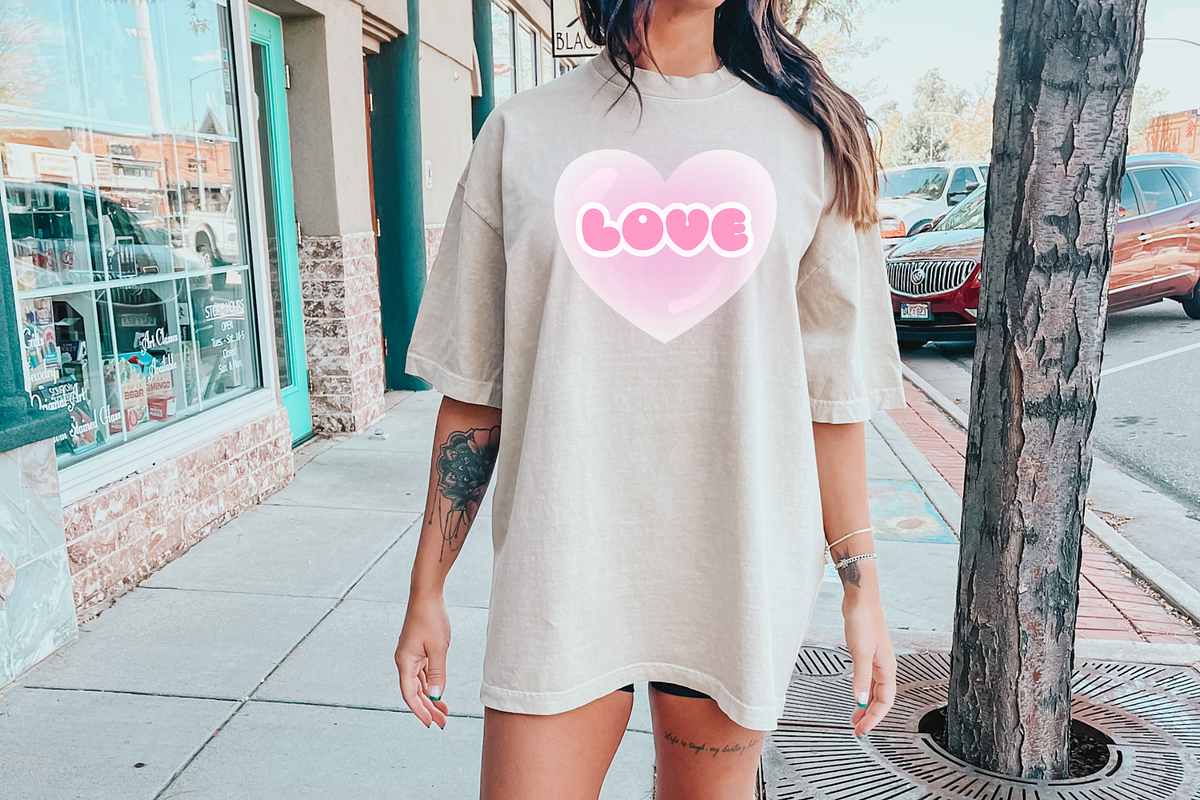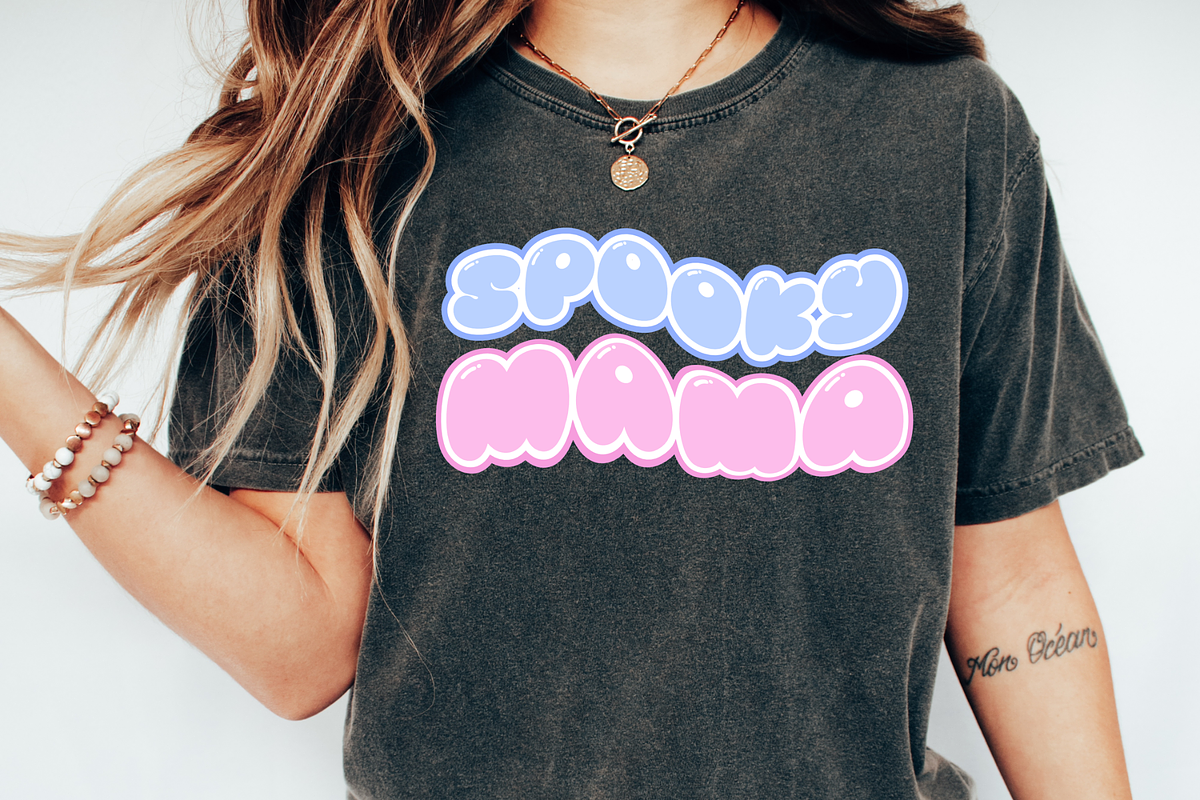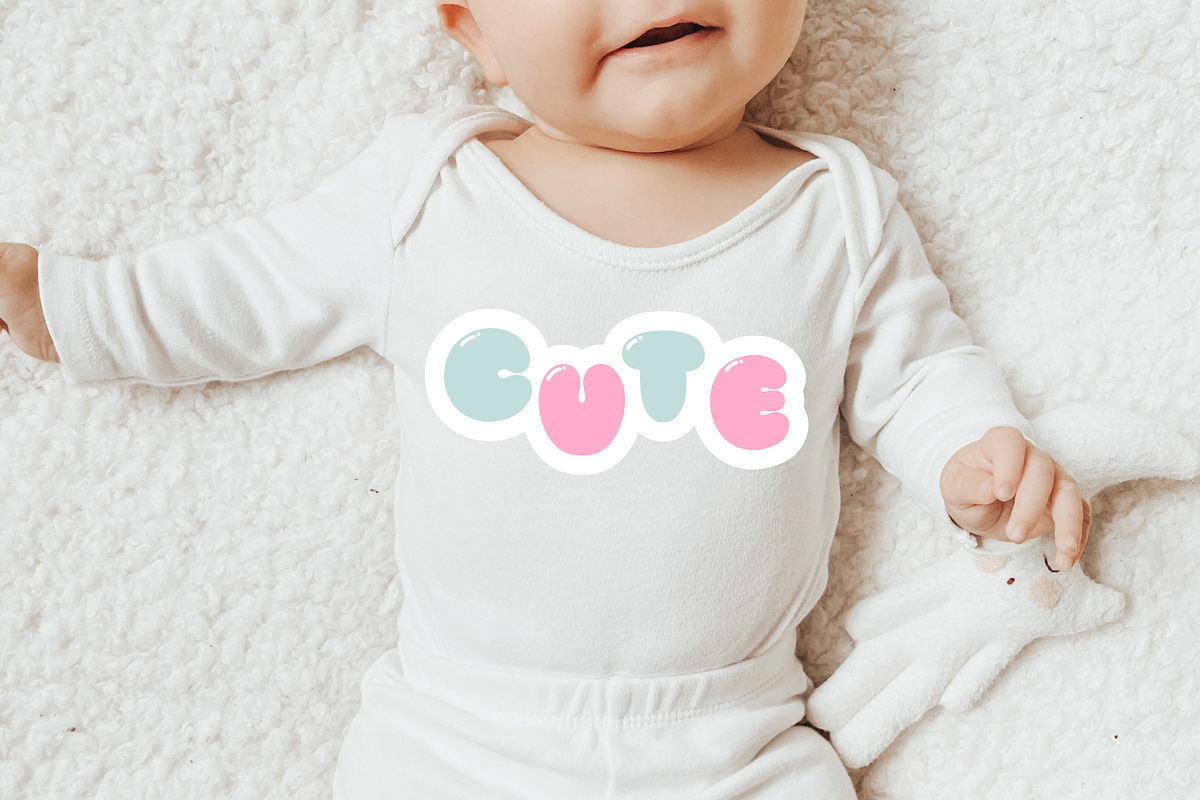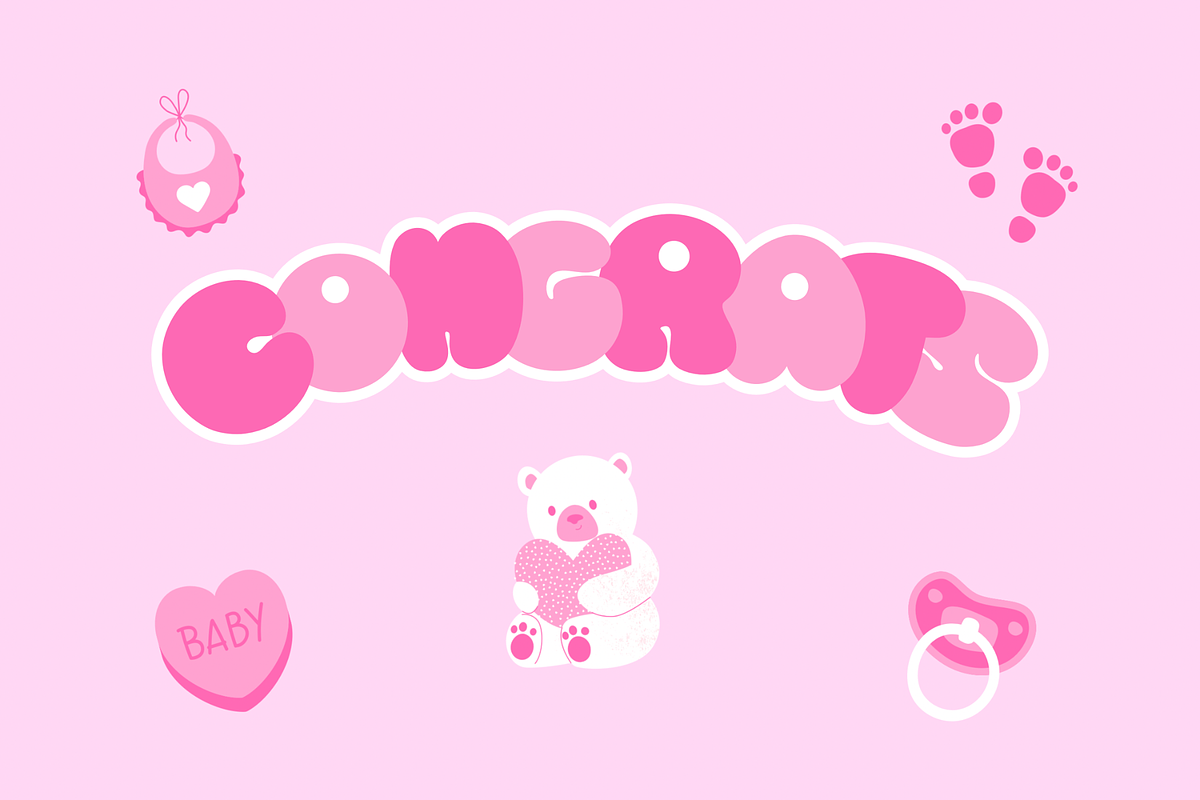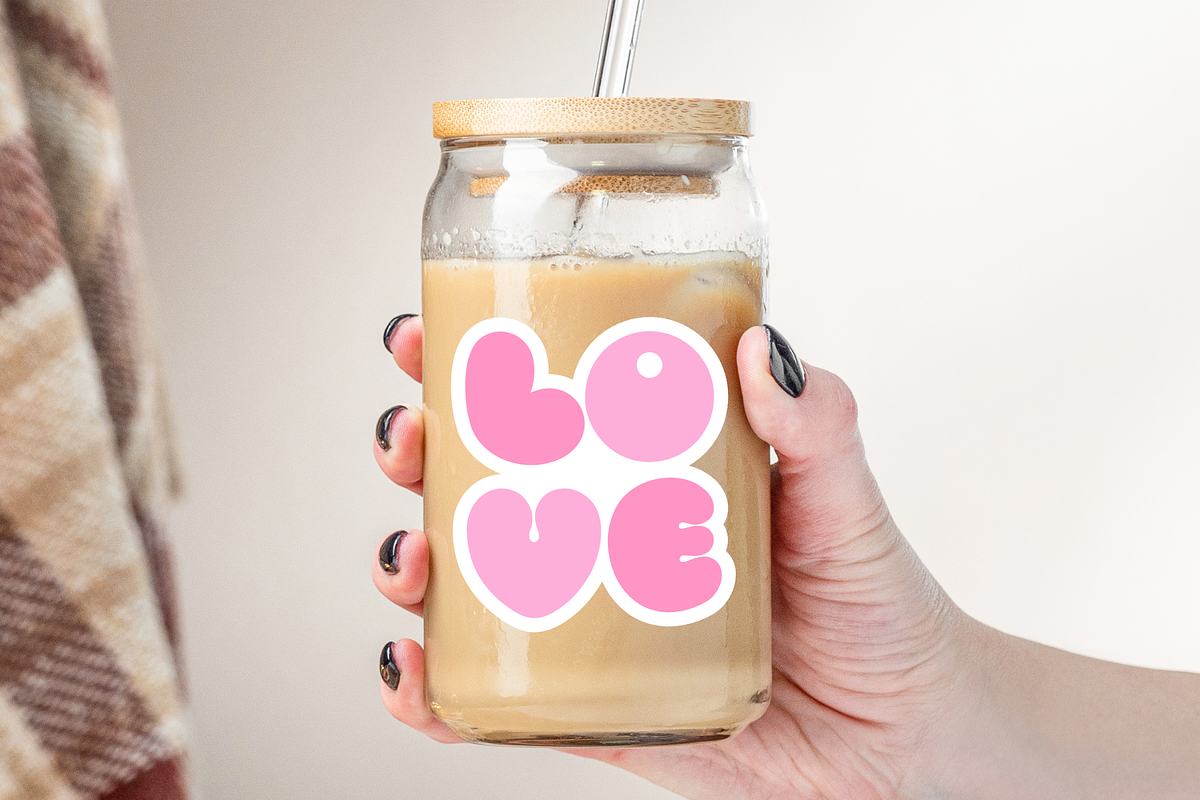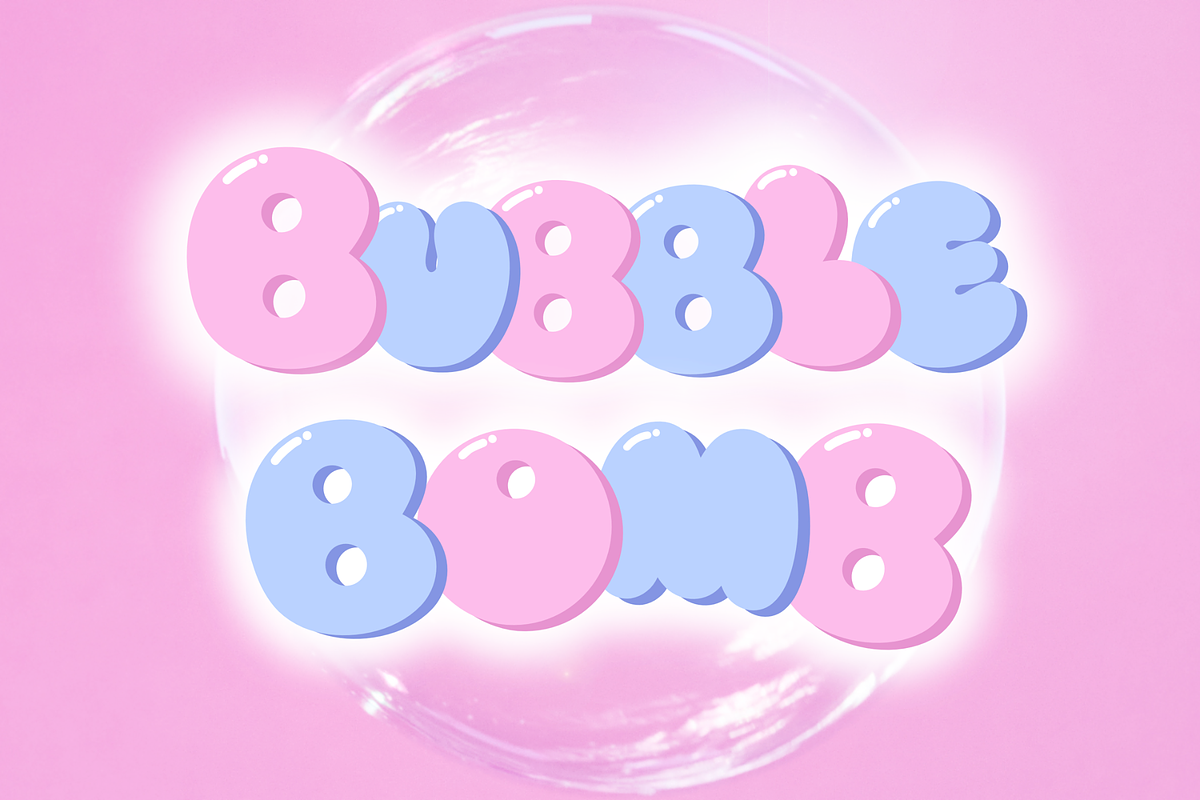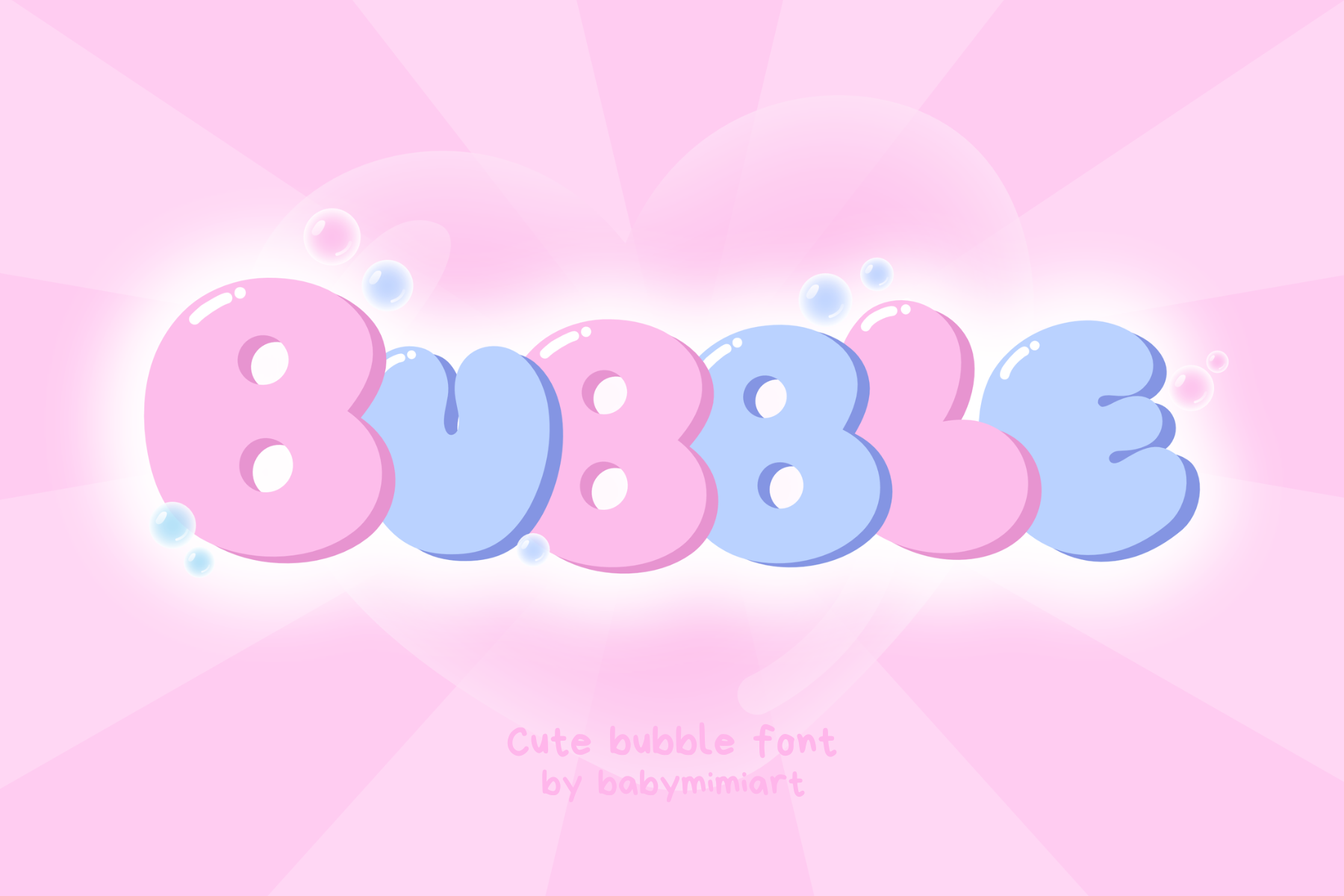
Bubble Font
Bubble is an adorable font that brings a playful touch to your projects. With bubbly and rounded letters, this font creates a cute and cheerful vibe. Perfect for various cute projects, from children’s books to logos and greeting cards, its friendly appearance adds a lighthearted and joyful feel. Add a touch of charm and playfulness to your designs with Bubble Font.